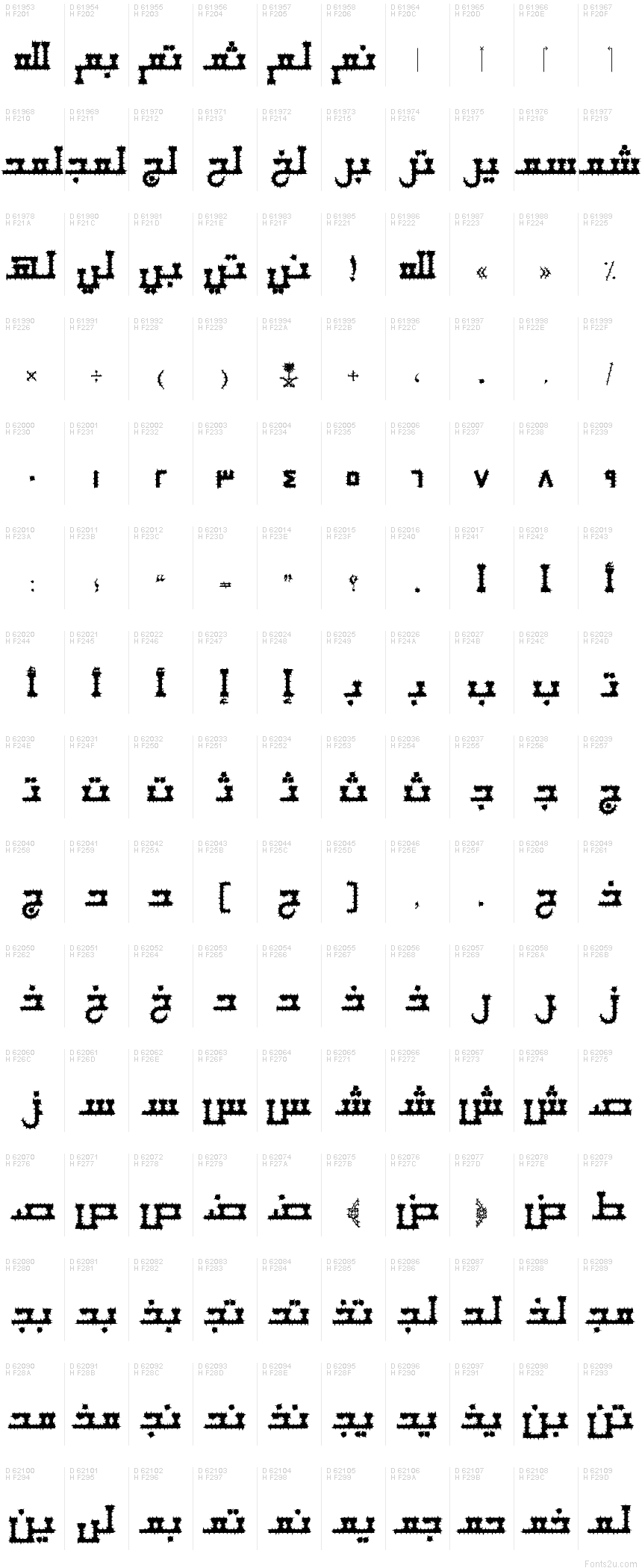
MCS Talaya Spined is a free Arabic display font built from tall, squared strokes and open rectangular forms. The letters feel architectural and rhythmic, with repeated upright shapes that read like a row of narrow frames, giving the font a spare, geometric presence rather than a calligraphic one.
That makes it a natural choice for posters, title cards, cover lines, branding, and packaging where a headline can carry a strong vertical pattern. As a free font, it also suits short editorial headers, logo studies, and monogram-like initials, especially when you want an Arabic look that feels rigid, modern, and almost modular.
MCS TALAYA SPINED